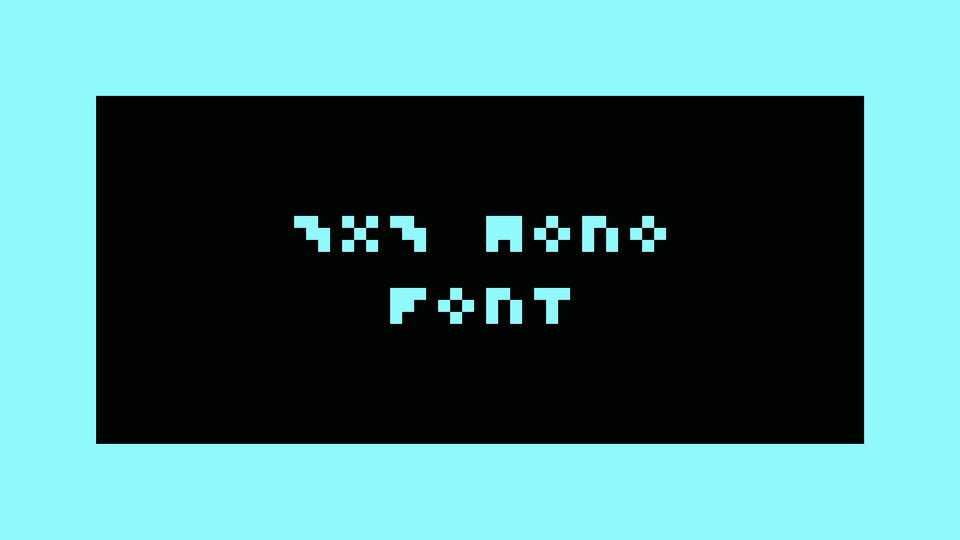
Download 3×3 Mono font, a minimalist pixel typeface based on a 3×3 bitmap matrix. With its tiny look 3×3 Mono font is the smallest readable font, perfect for low resolution gadgets and games.